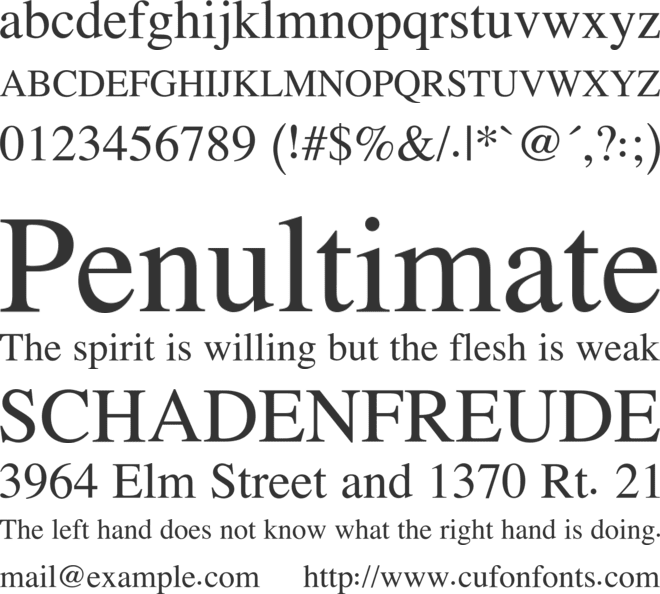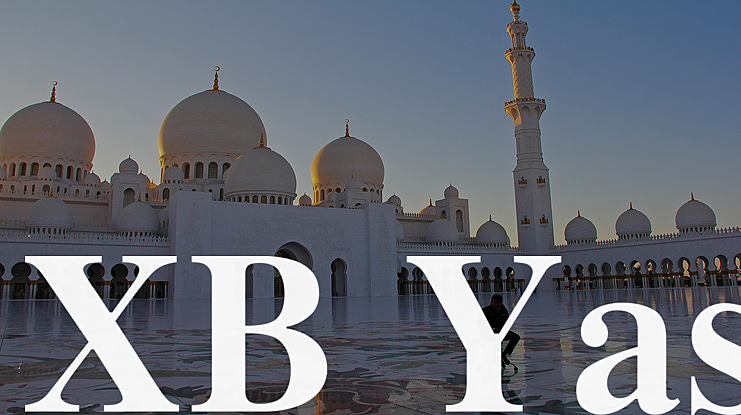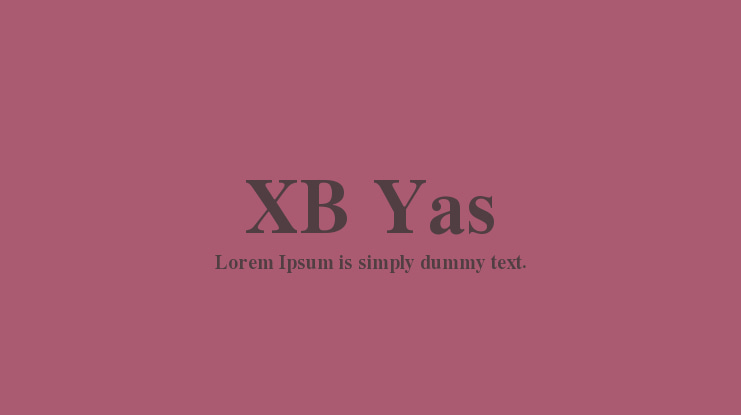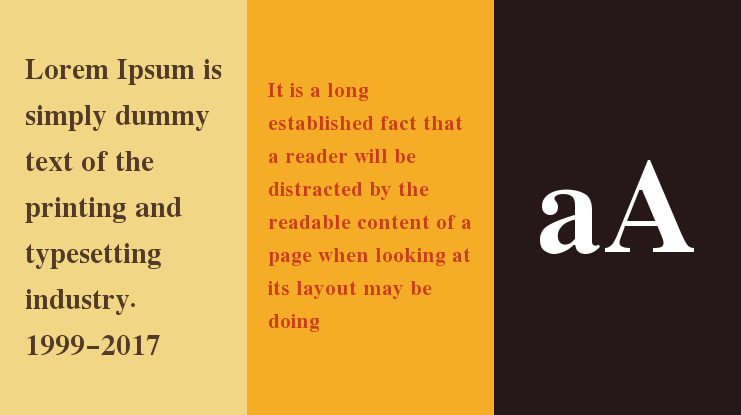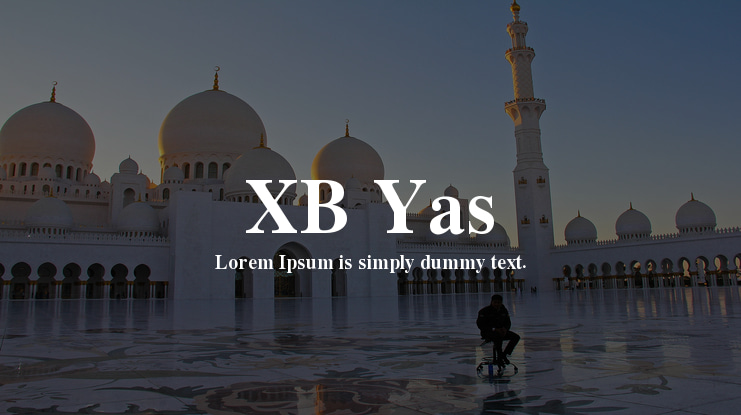
XB Yas Font Family
Behnam
X Series 2 fonts are built on freely available fonts and extended to support Persian, Arabic, Urdu, Pashto, Dari, Uzbek, Kurdish, Uighur, old Turkish (Ottoman) and modern Turkish (Roman).
These fonts are equipped with two font technologies, AAT and OpenType and can be used on any platform, Mac, Windows or Linux.
XB Yas font preview